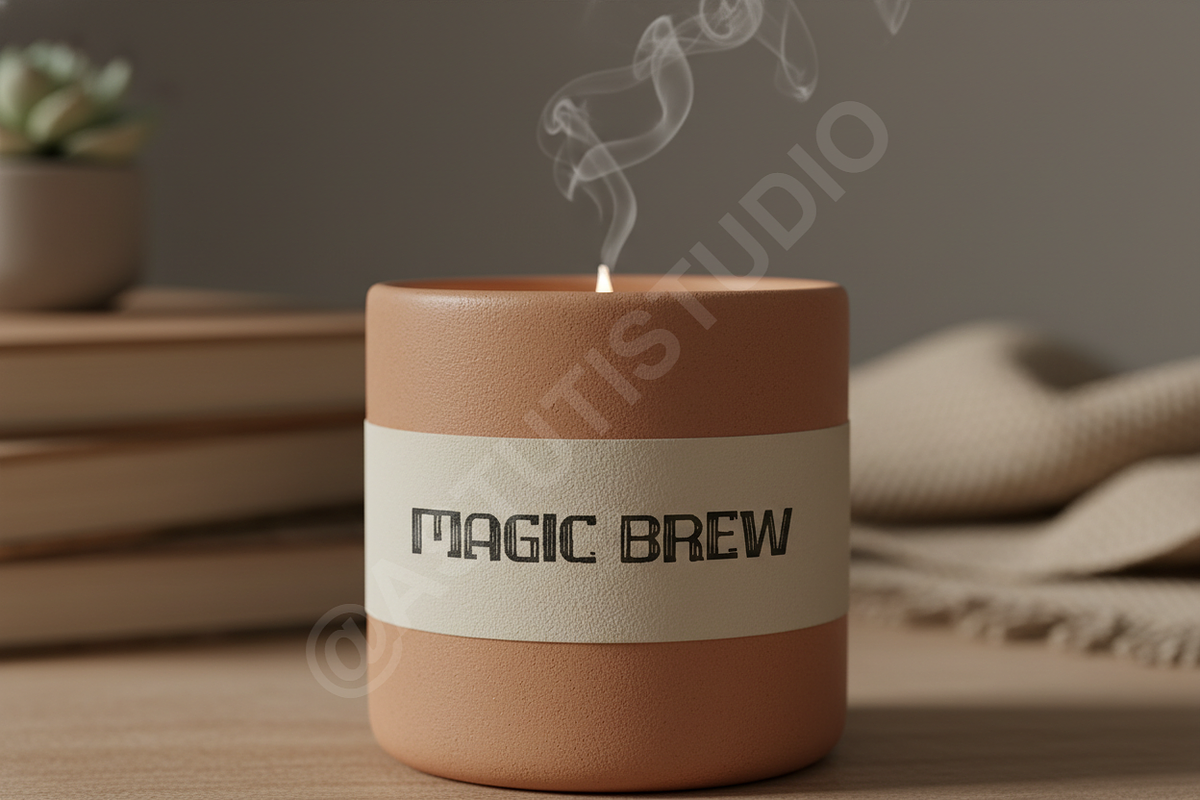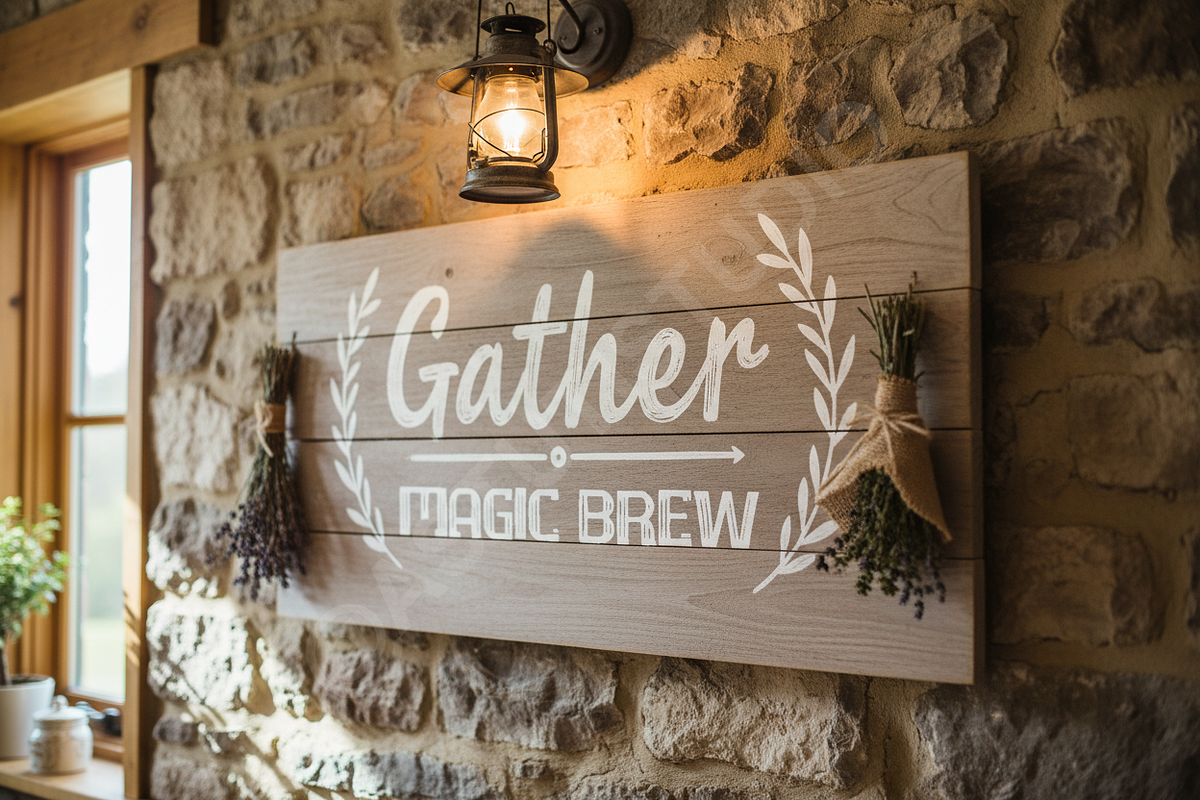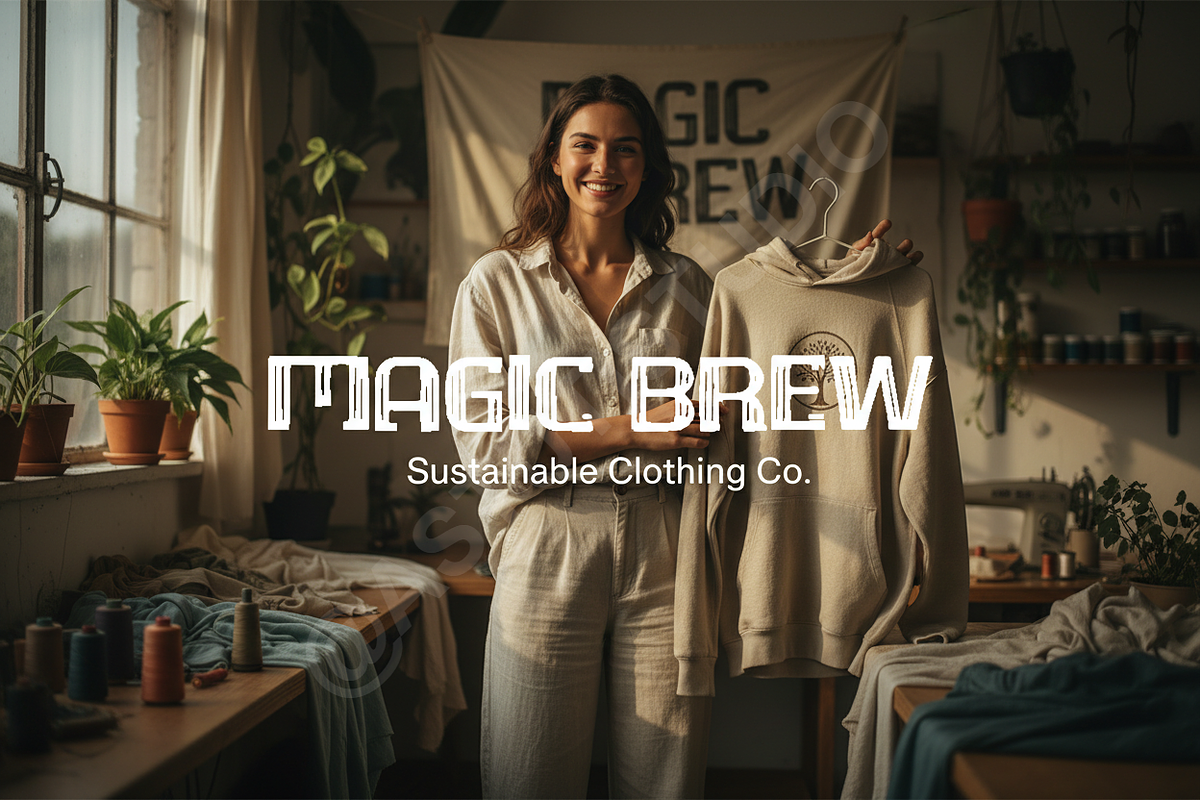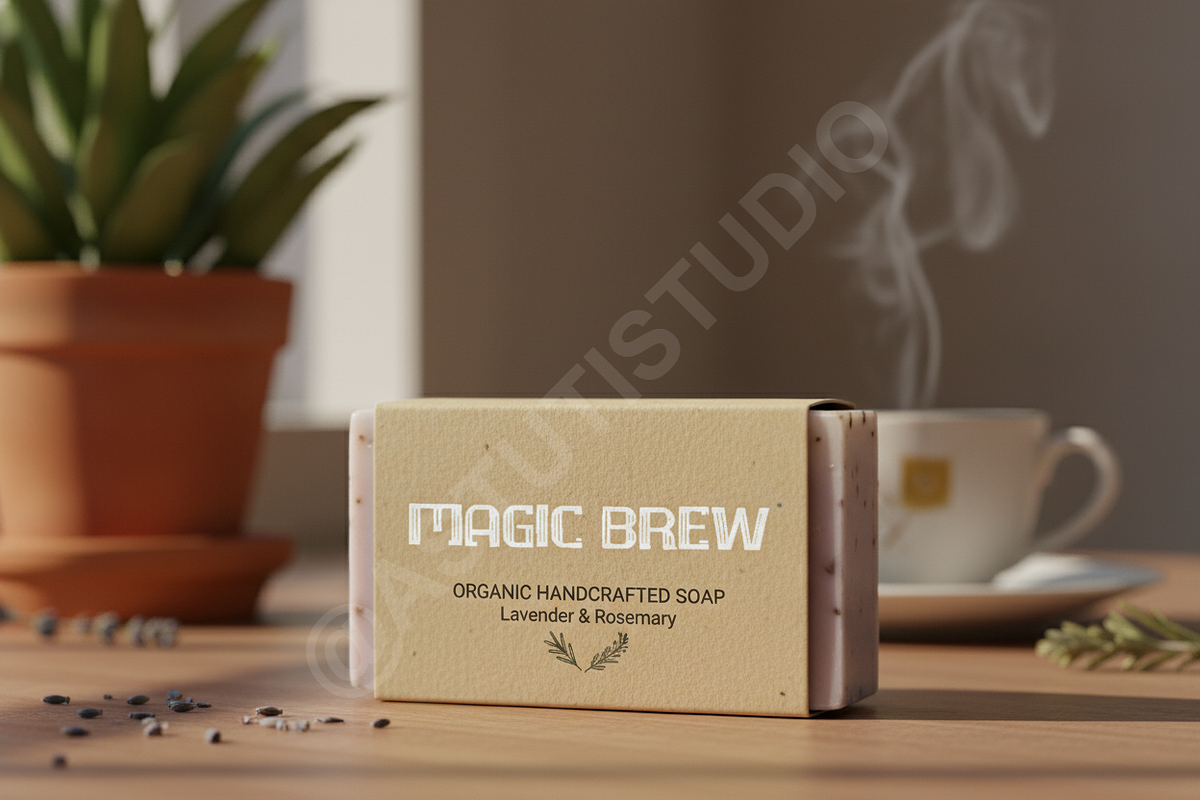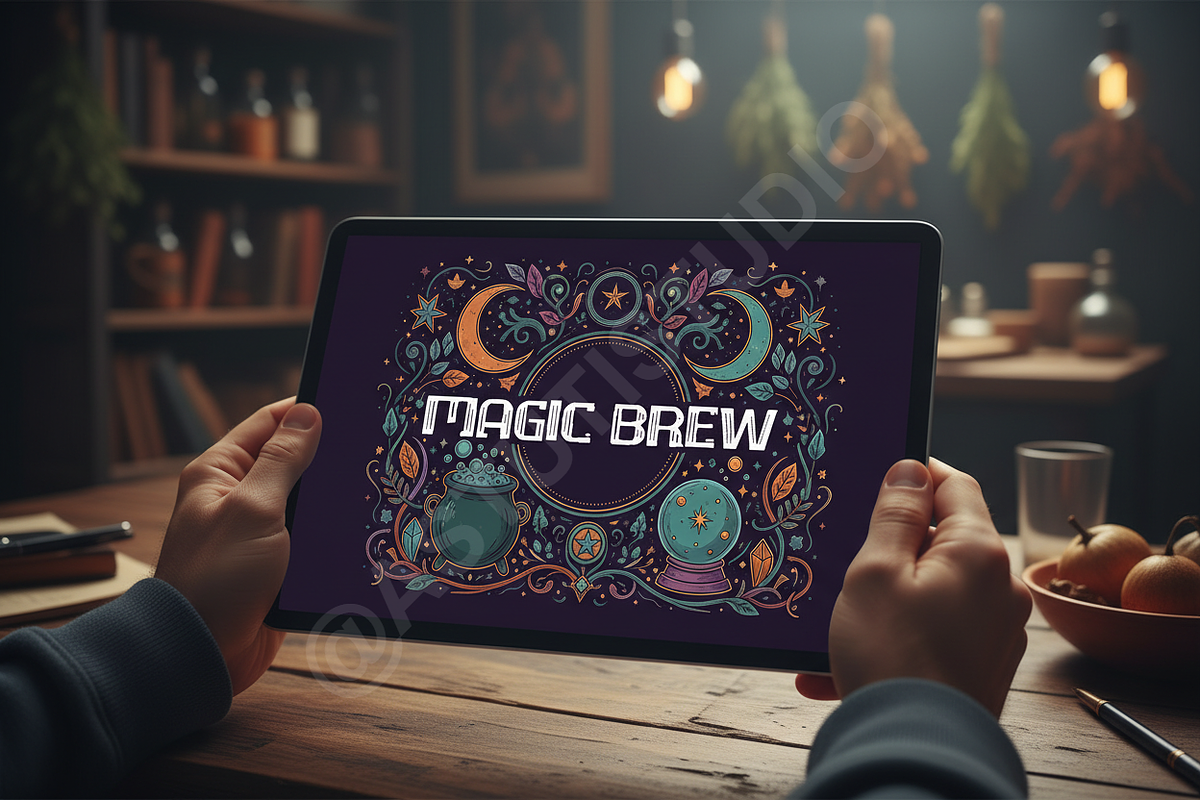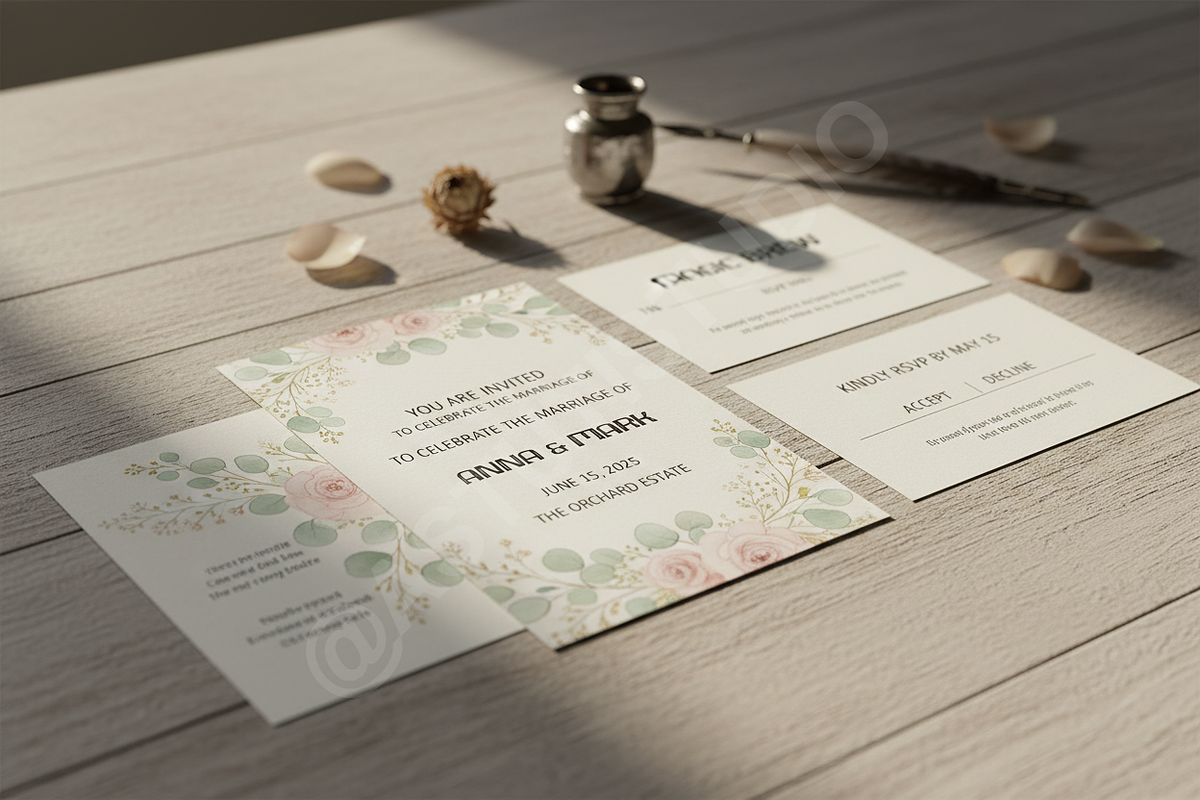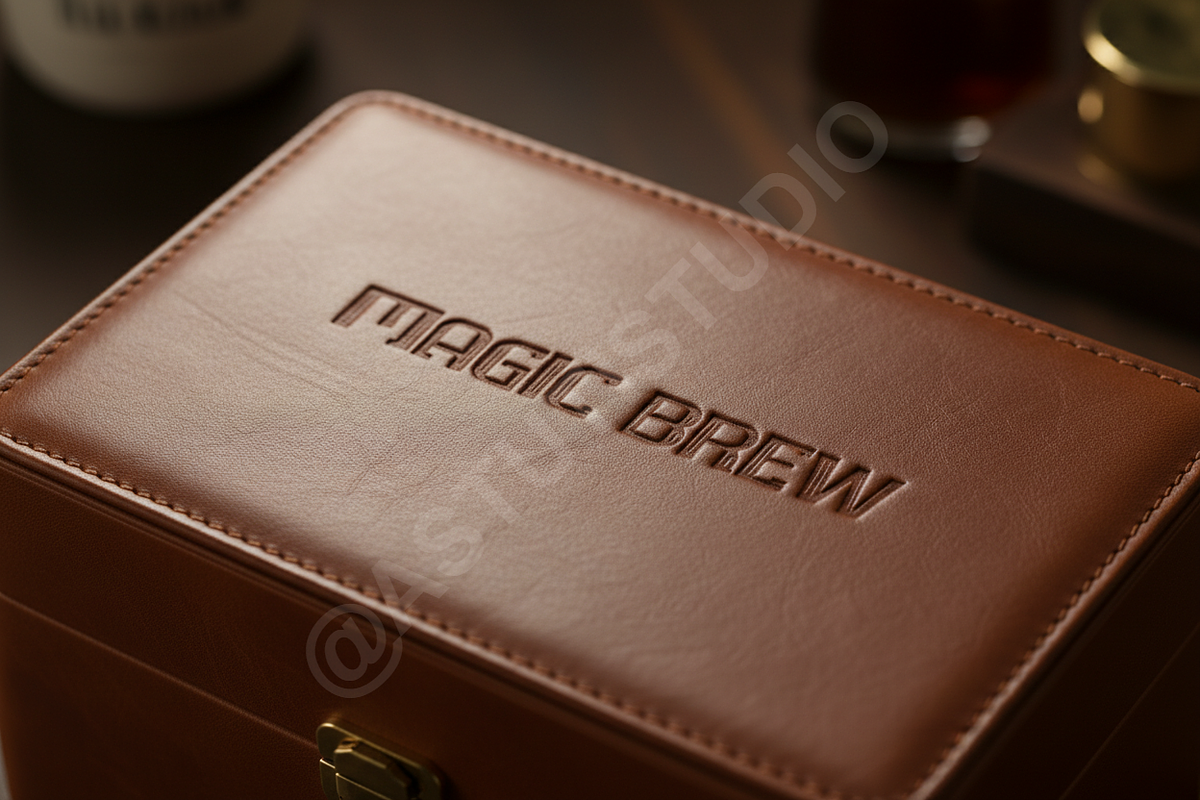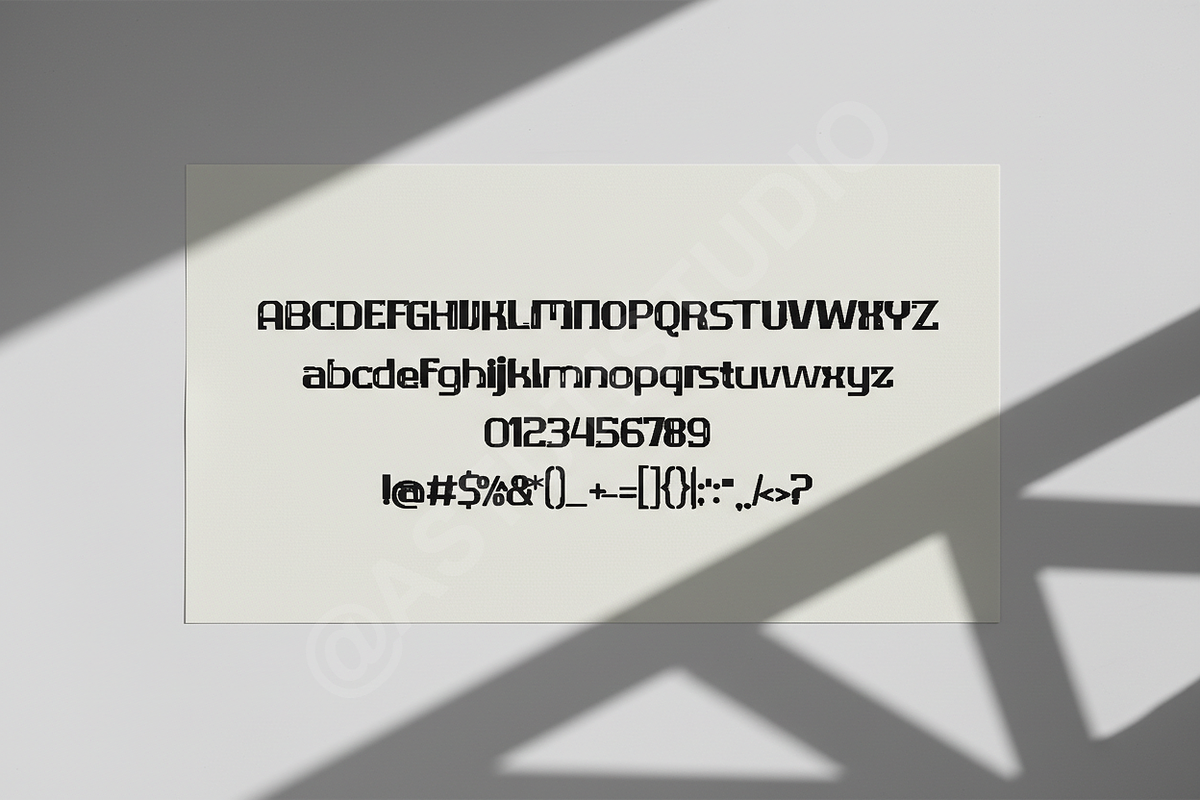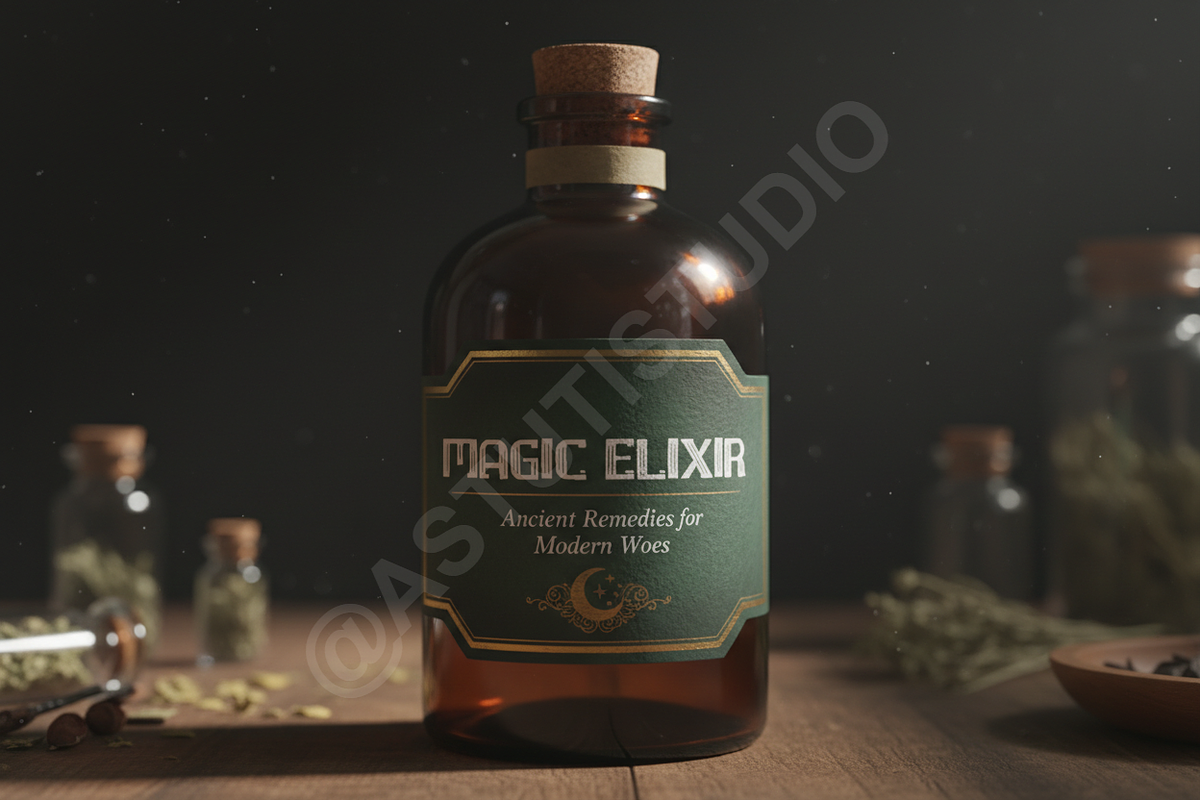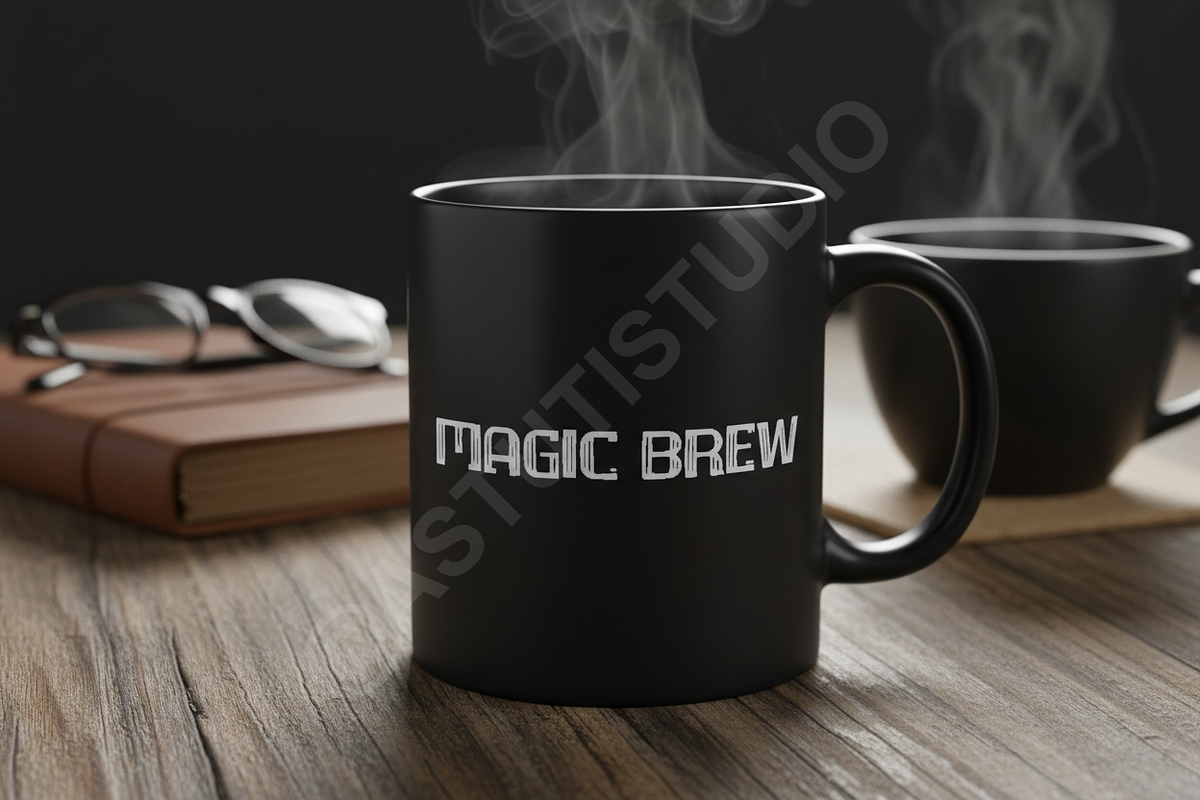
Bufo | Elegant Modern Display Serif
INTRODUCTION
Introducing Bufo, a refined and sophisticated display serif typeface designed specifically for discerning brands. With its sharp, high-contrast curves and delicate terminals, Bufo evokes a sense of timeless luxury and contemporary elegance. It is the definitive choice for projects that demand high aesthetic value and a premium feel, making every word resonate with authority.
FEATURES & APPLICATIONS
- LUXURY BRANDING: Perfect for high-end product packaging, exclusive event invitations, and corporate identity systems that require an upscale visual signature.
- EDITORIAL DESIGN: Features the necessary grandeur for impactful magazine headlines, book covers, and sophisticated advertising layouts.
- SOCIAL MEDIA OPTIMIZATION: High legibility and distinctive style ensure maximum impact on platforms like Instagram and Pinterest, enhancing your digital presence.
- COMPLETE GLYPH SET: Includes a full array of uppercase and lowercase letters, numerals, punctuation, and extensive multilingual support.
- ADVANCED OPENTYPE FEATURES: Equipped with standard and discretionary ligatures, stylistic alternates, and contextual characters for true typographic customization.